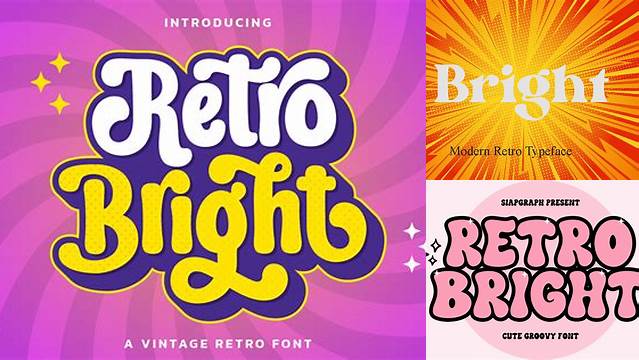
Bright Retro Free Font: Download Now!
Hey guys! Are you on the hunt for a font that screams vintage vibes with a modern twist? Look no further! The bright retro free font is here to inject some serious personality into your projects. Whether you're designing posters, logos, websites, or anything in between, this font is your new best friend. So, let’s dive into why this font is so awesome and how you can make the most of it.
1. What Makes a Font "Bright Retro"?
When we talk about a bright retro free font, we’re really talking about a typeface that evokes the spirit of past decades – think the vibrant colors and bold designs of the 60s, 70s, and 80s – but with a contemporary feel. This means the font will likely feature rounded edges, thick strokes, and maybe even some fun, quirky details that nod to classic styles while still looking fresh and modern. Understanding the essence of “bright retro” helps you appreciate the design choices that go into these fonts and how they can elevate your work.
Choosing a font that is considered a bright retro free font is more than just picking something that looks old. It's about capturing a mood, a feeling, a certain nostalgia. These fonts often have a playful, energetic character that can add a lot of personality to any project. For instance, imagine using this kind of font for a poster advertising a retro-themed party or a website for a vintage clothing store. The font itself becomes part of the brand’s identity, instantly communicating its style and ethos. Think about the kind of message you want to send. Do you want to evoke a sense of fun, nostalgia, or perhaps even a bit of rebellion? The right bright retro font can do all of that.
But it’s not just about aesthetics; the usability of the font is crucial too. A great bright retro font should be legible in various sizes and across different mediums. This means it needs to work well both in print and on digital screens. Consider the spacing between letters, the thickness of the strokes, and the overall balance of the design. A font might look stunning at a large size, like on a poster, but if it becomes a blurry mess when used in smaller text, it’s not going to be very practical. So, always test out the font in different contexts before committing to it. By considering these aspects, you'll not only pick a font that looks great but also one that's highly functional.
2. Key Characteristics of Bright Retro Fonts
The characteristics of a bright retro free font are what give it that distinctive vintage yet modern vibe. We often see bold letterforms, which command attention and reflect the confident design trends of the mid-20th century. Think about the thick, rounded shapes popular in the 1970s – these fonts have a friendly, approachable feel. They contrast with the sharp, geometric fonts that were also in vogue, offering a softer, more playful alternative. This boldness isn’t just about thickness; it’s about making a statement, ensuring that the text stands out and grabs the viewer’s eye.
Color plays a big role, even though the font itself is just the shape of the letters. When we think of bright retro fonts, we often imagine them paired with vibrant hues like oranges, yellows, and teals. These colors enhance the retro feel, creating a cohesive visual experience. Imagine a poster with a bright yellow background, a teal headline in a bold retro font, and perhaps some orange accents. The combination is instantly evocative of a specific era, transporting the viewer back in time. It’s this connection to color that makes these fonts so versatile; they can be adapted to fit a wide range of moods and styles, from fun and playful to sophisticated and stylish.
Texture and details are also crucial. A subtle texture, like a slight roughness or a hint of grain, can add depth and authenticity to the font. This can make it look like it’s been lifted straight from an old print, giving it a tactile quality even on a digital screen. Little details, such as unique serifs or unusual letter shapes, can also set a font apart and make it memorable. These small touches show the care and craftsmanship that went into the design, making the font feel special and unique. By paying attention to these characteristics, you can choose a bright retro font that truly embodies the spirit of vintage design while still feeling fresh and relevant.
3. Top Examples of Free Bright Retro Fonts
Finding the perfect bright retro free font can sometimes feel like searching for a needle in a haystack, but there are some fantastic options out there that won't cost you a dime. One standout example is "Bebas Neue," while not strictly retro, its clean, bold lines can be styled to achieve a retro feel, especially when paired with the right colors and design elements. Another great choice is “Oswald,” a reworking of the classic gothic typeface, which offers a modern twist on a vintage favorite. These fonts are versatile and widely used, making them excellent choices for a variety of projects. They have a timeless quality that works well in both digital and print media.
For something with a more distinct retro flair, consider fonts like “Lobster” or “Pacifico.” Lobster, with its flowing script and bold strokes, is reminiscent of vintage signage and advertisements. It's perfect for headlines and logos where you want to make a statement. Pacifico, another script font, has a more relaxed and casual vibe, evoking the feel of 1950s surf culture. These fonts have a lot of personality and can add a unique touch to your designs. They’re especially effective in projects that aim to capture a specific era or mood. But don’t stop there; there are tons of other amazing free fonts available online.
Websites like Google Fonts, Font Squirrel, and DaFont are treasure troves of free typefaces. Google Fonts is particularly user-friendly, offering a wide selection of high-quality fonts that are easy to download and use in your projects. Font Squirrel is another excellent resource, known for its curated collection of fonts that are free for commercial use. DaFont has a vast library, with fonts in every style imaginable, but it’s always a good idea to double-check the licensing terms before using a font from this site, especially for commercial projects. When exploring these resources, be sure to use search terms like “retro,” “vintage,” “bold,” and “script” to narrow down your options and find the perfect bright retro free font for your needs.
Color plays a crucial role in print design. Bright retro fonts often work well with vibrant colors, but it's important to use color intentionally. Consider the printing process and the type of paper you're using. Some colors might appear differently in print than they do on a screen, so it's always a good idea to do a test print before committing to a large run. The choice of paper can also affect the overall look and feel of your design. A matte paper might give your design a more vintage feel, while a glossy paper can make the colors appear more vibrant. By paying attention to these details, you can create print materials that truly capture the essence of retro design.